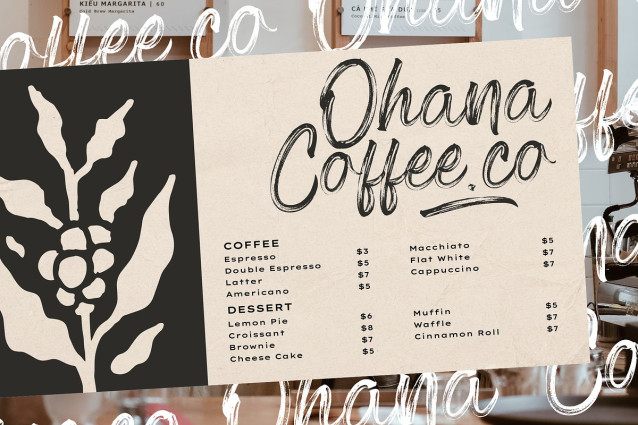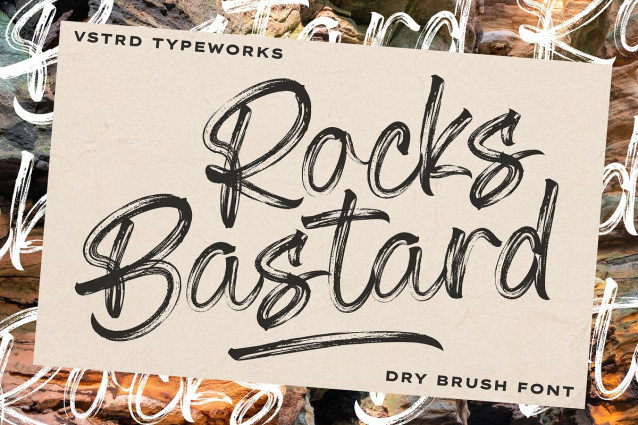
Rocks Bastard Font
Rocks Bastard Font, a dynamic dry brush script font crafted from natural, hand-scanned brush strokes. Its raw, textured feel delivers an authentic handwritten touch, making it perfect for designs that demand energy and personality.
Whether you’re designing logos, signatures, video titles, product branding, quotes, printable templates, posters, flyers, t-shirts, or adding a striking overlay to images, RocksBastard brings a handcrafted aesthetic that stands out.